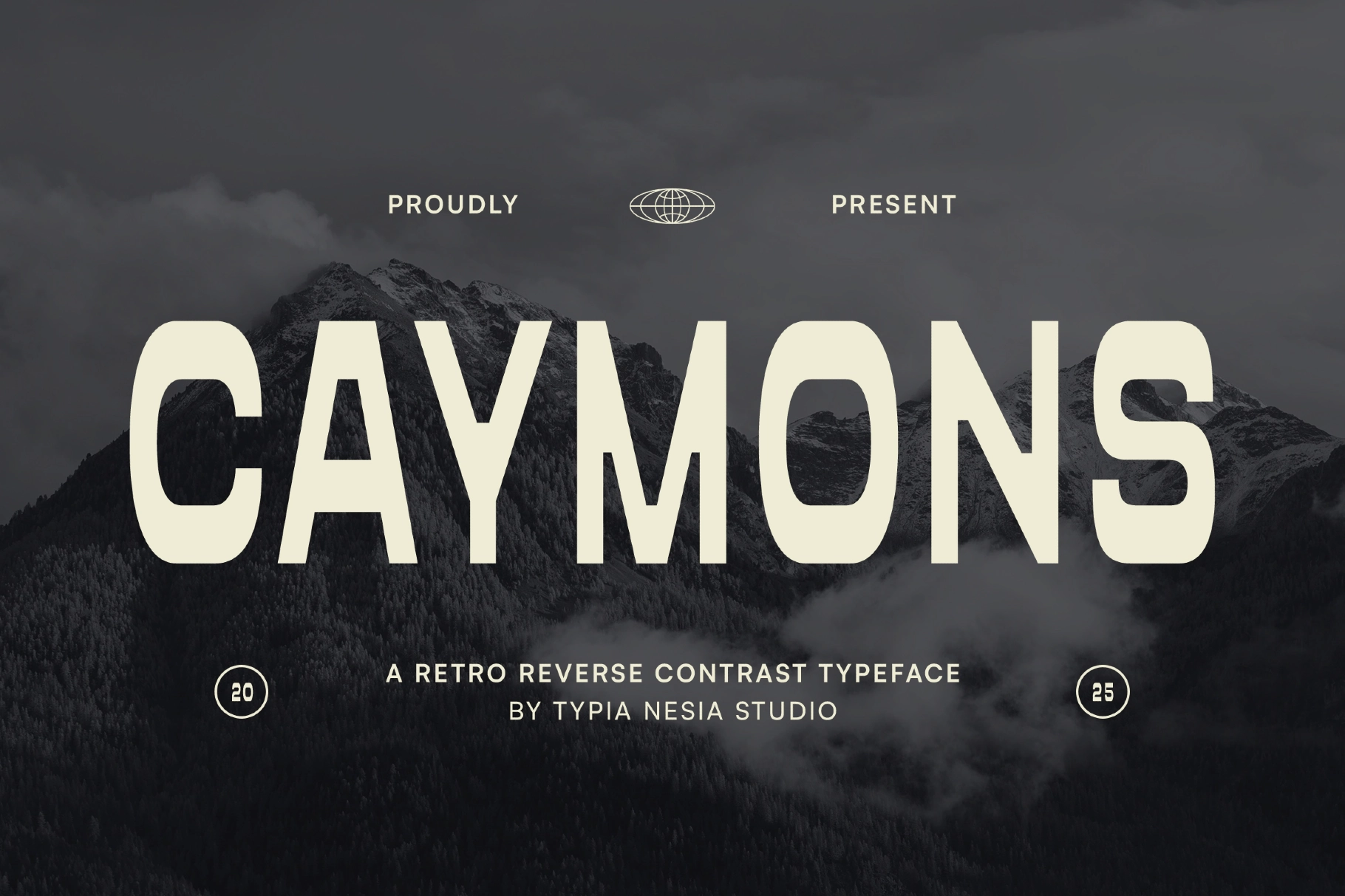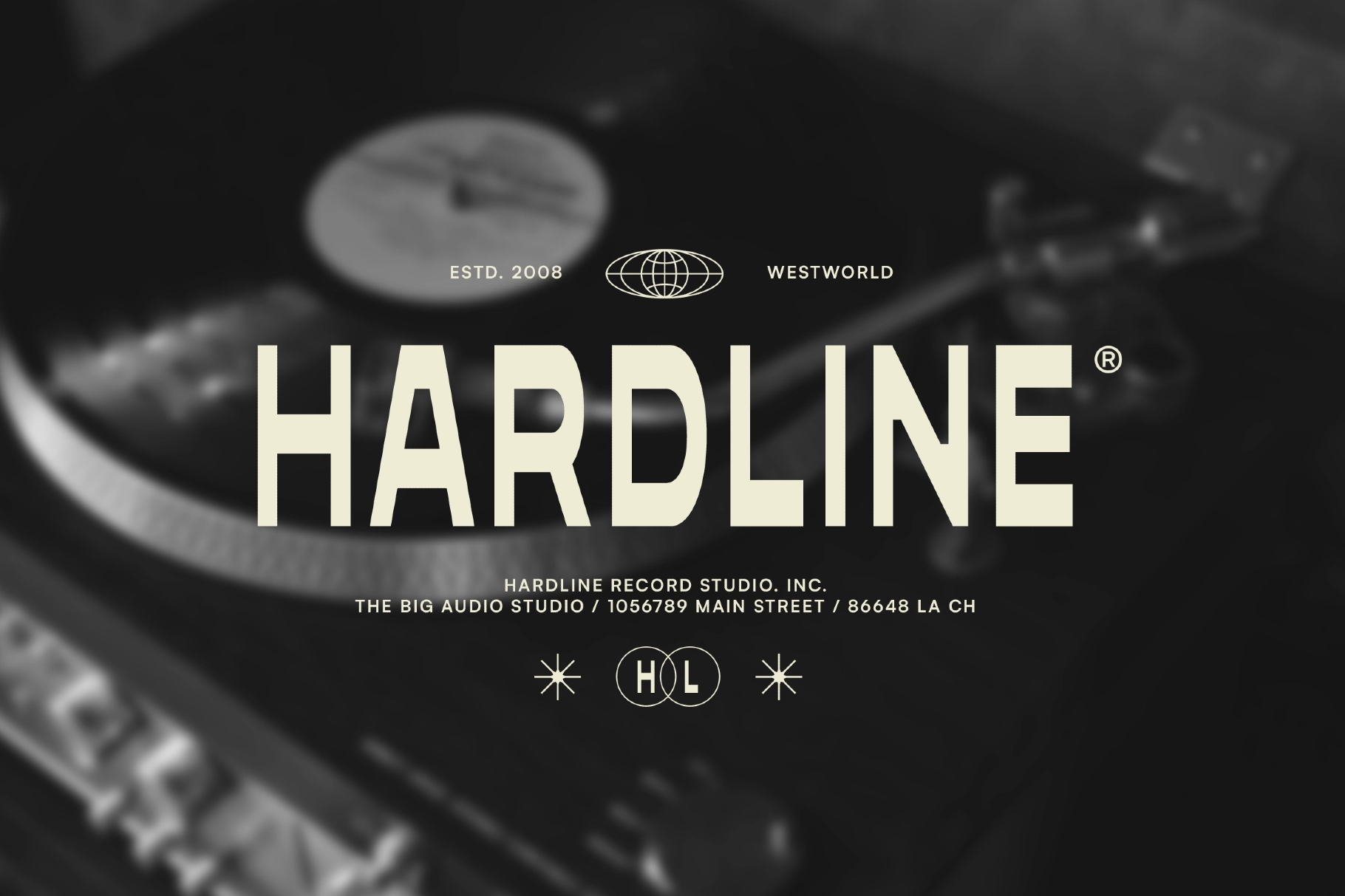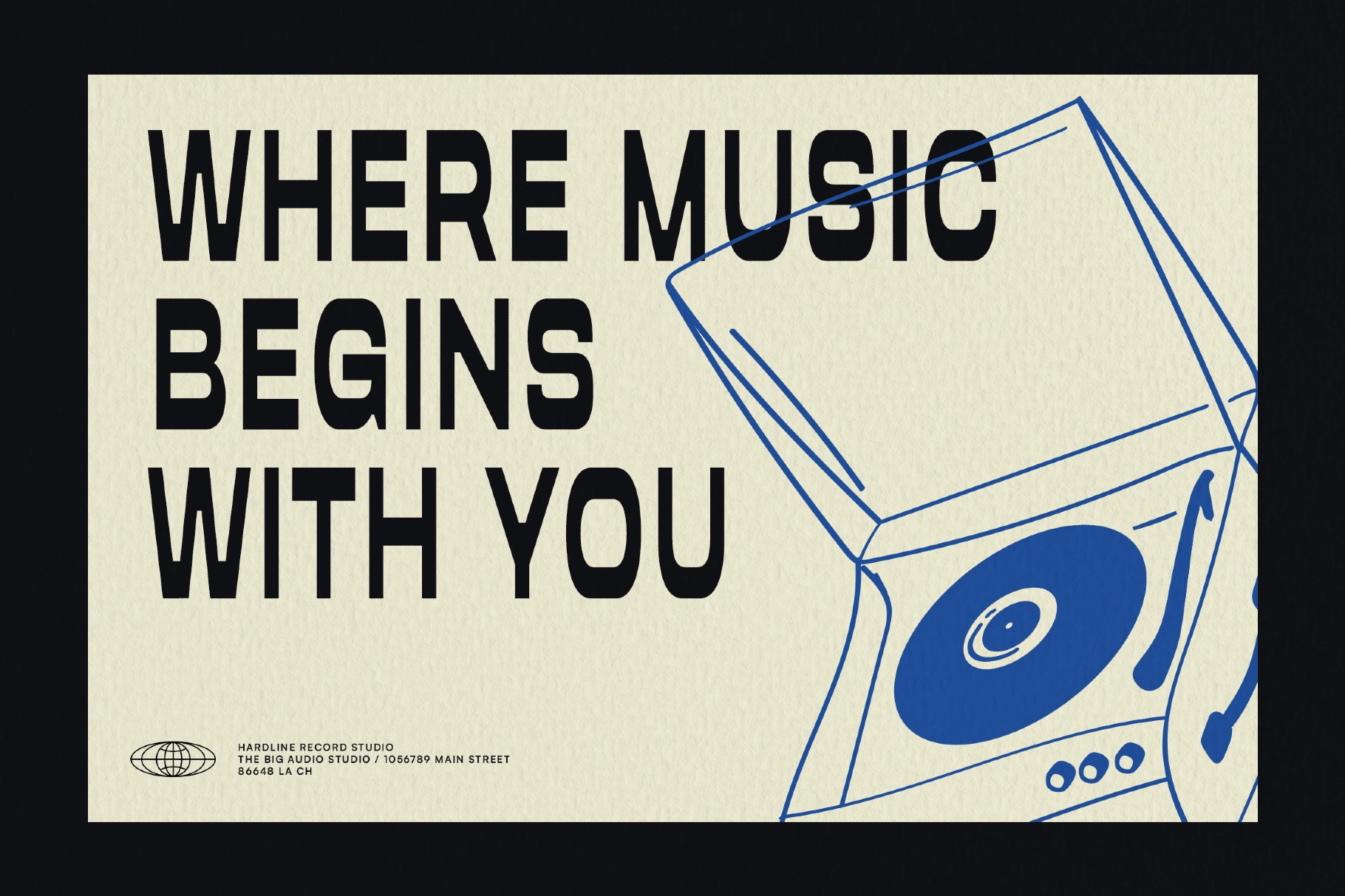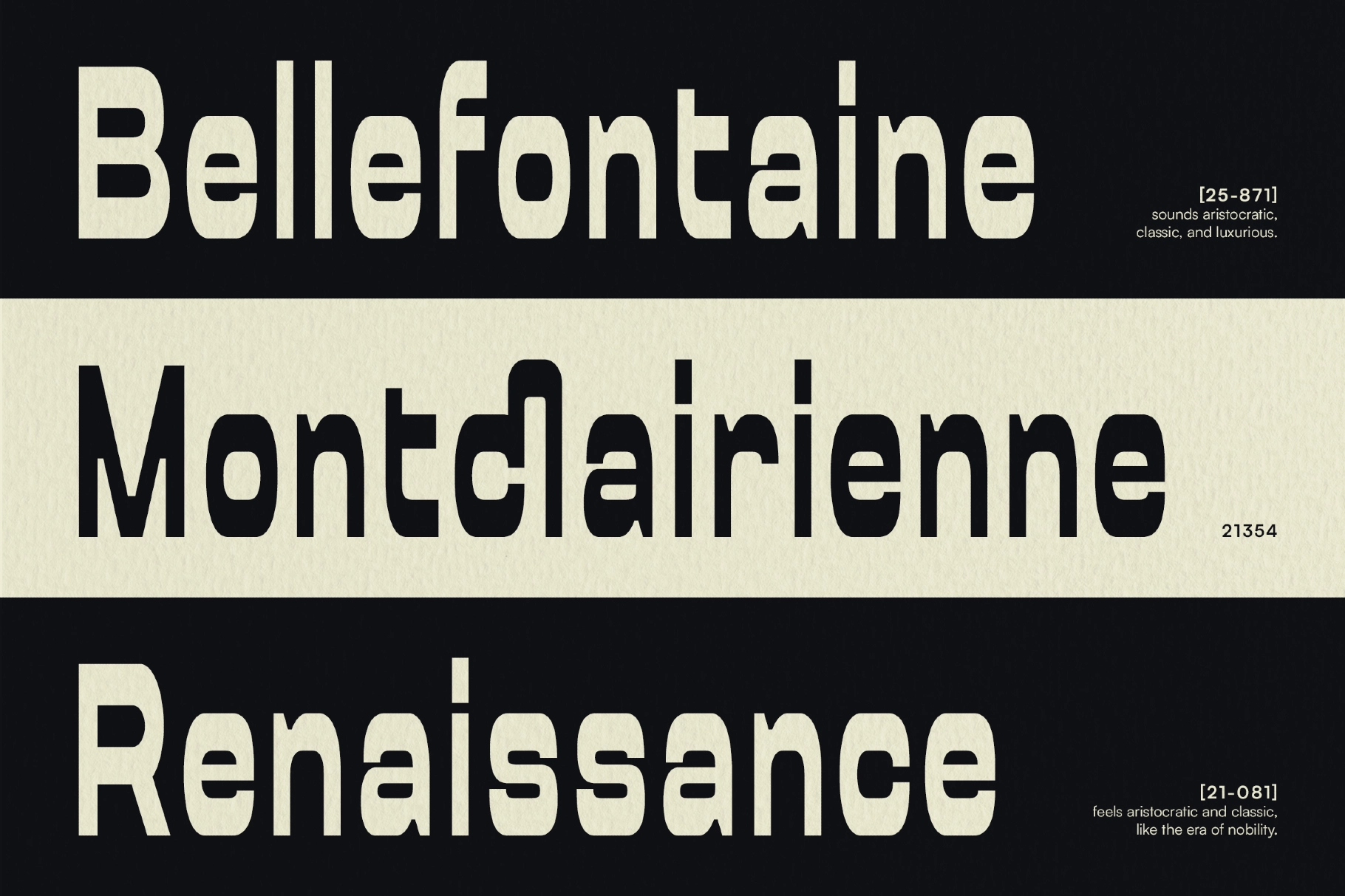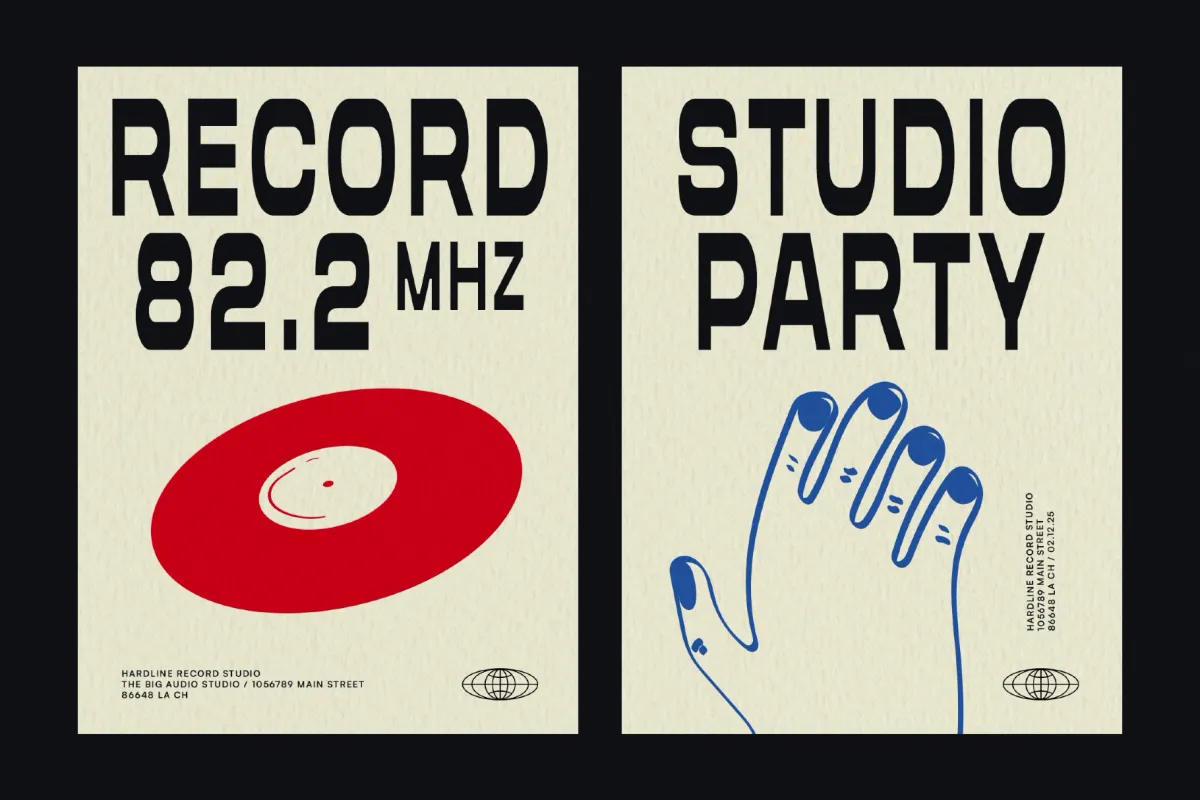
Caymons - Retro Bold Condensed Sans
Caymons
Caymons - Retro Bold Condensed Sans is a striking display typeface inspired by the bold energy of 80s and 90s typography. Its condensed proportions and distinctive reverse contrast create a powerful visual rhythm, blending nostalgic character with a clean, modern edge.
Designed to stand out in high-impact layouts, Caymons is perfect for logos, posters, music branding, event graphics, streetwear, and digital design. The strong letterforms ensure excellent visibility while adding a unique retro personality that makes any composition instantly recognizable.
- Reverse contrast for strong visual impact
- Uppercase & lowercase characters
- Decorative ligatures for creative typography